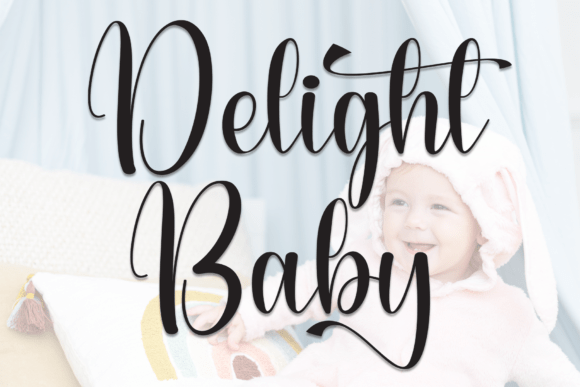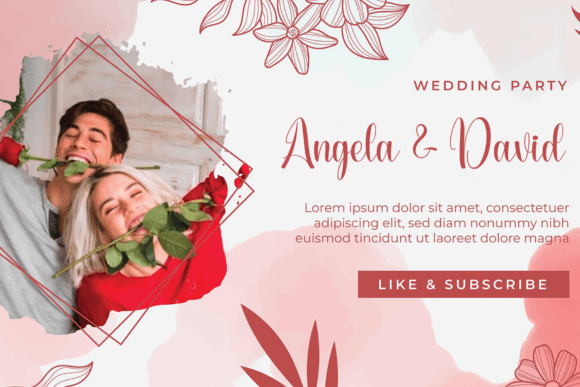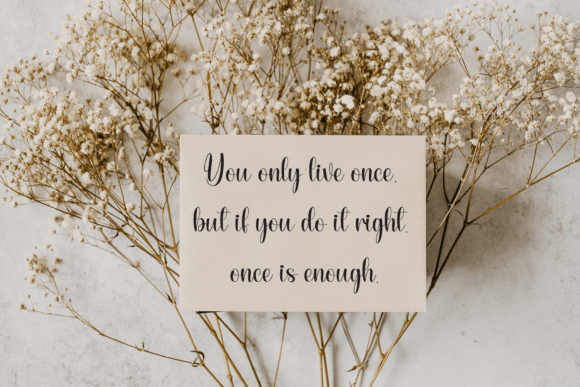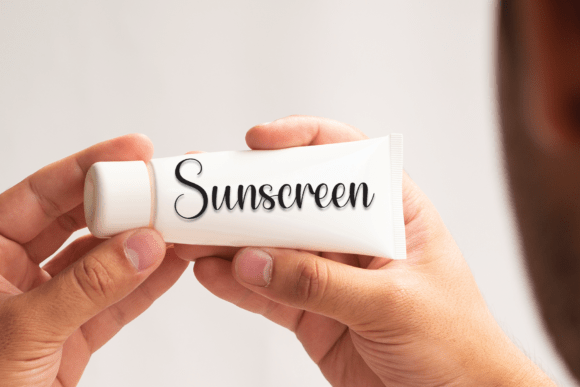
Delight Baby Font
About the Delight Baby Font
Meet Delight Baby Font, a stunning font that brings a touch of elegance and professionalism to any design. Delight Baby is a stylish handwritten script font that blends modern elegance with a playful touch. Its fluid strokes and charming curves bring a personal feel to any design. Ideal for logos, packaging, and invitations, this typeface adds warmth, sophistication, and creativity to every project.
Delight Baby’s playful yet elegant nature makes it perfect for branding projects targeting a young, modern audience, particularly in areas like children’s products, fashion, or lifestyle brands. It also excels in short-form applications such as logos, headlines, and social media graphics. However, its script style and varying stroke weights make it unsuitable for body text or extended reading.
For optimal visual harmony, pair Delight Baby with a clean sans-serif like Open Sans for a contemporary feel, or a classic serif such as Garamond for a more timeless, sophisticated look. A geometric sans-serif such as Futura could also create a striking contrast, enhancing Delight Baby’s handwritten charm.
The font’s overall personality is friendly, approachable, and youthful, conveying a sense of warmth and creativity without being overly childish or saccharine.
Delight Baby Font Usage Examples
Delight Baby Font Example